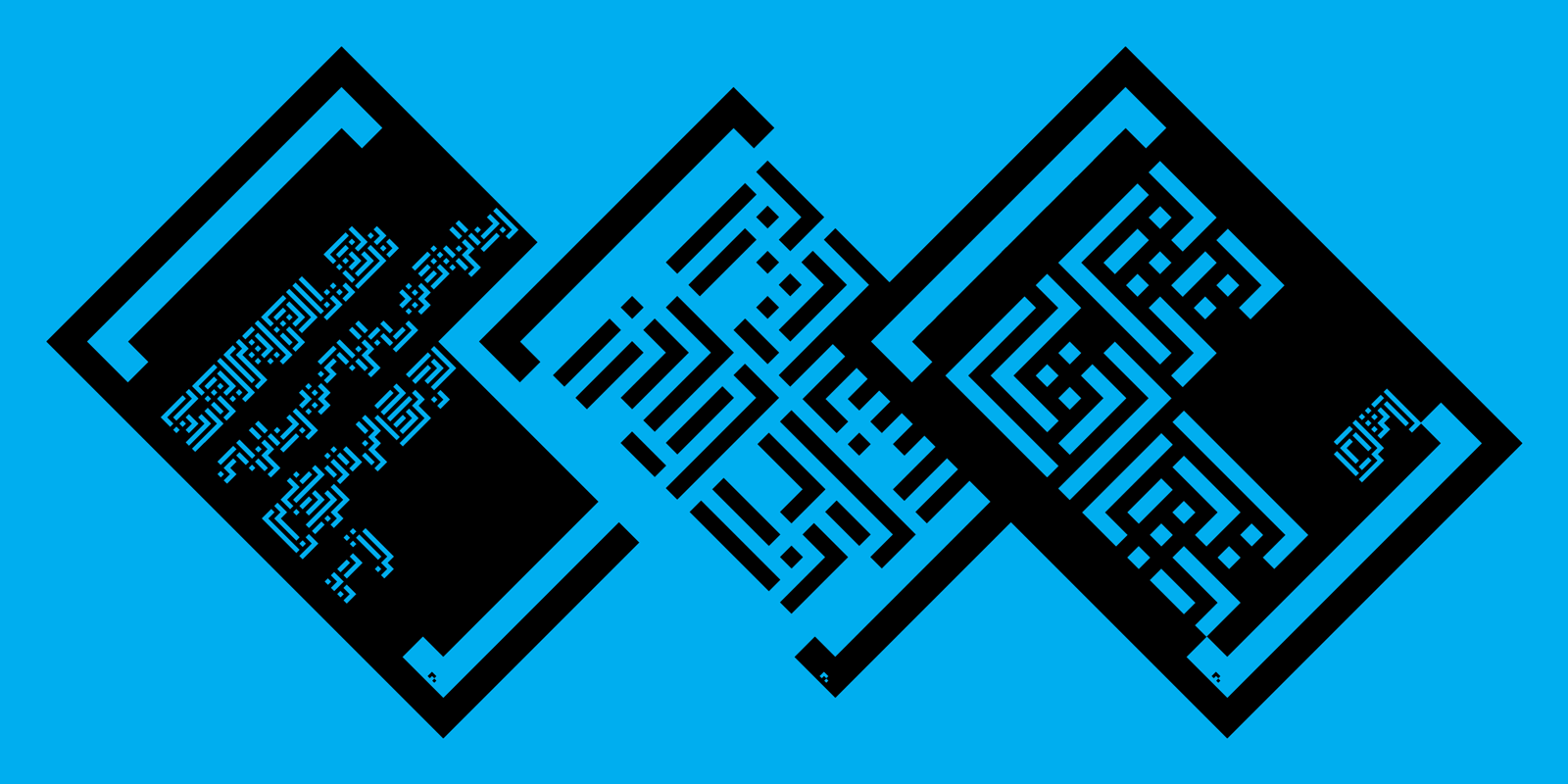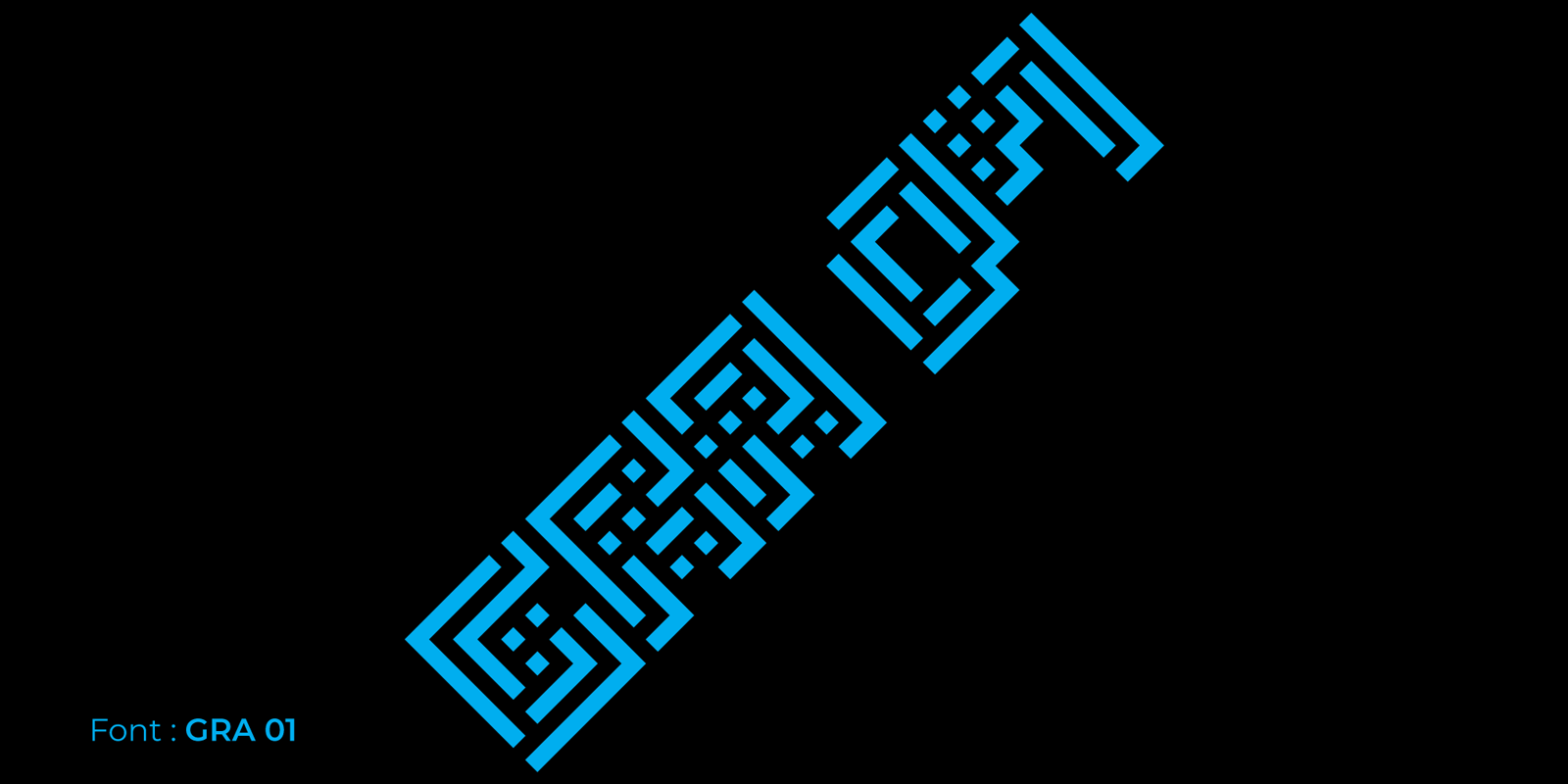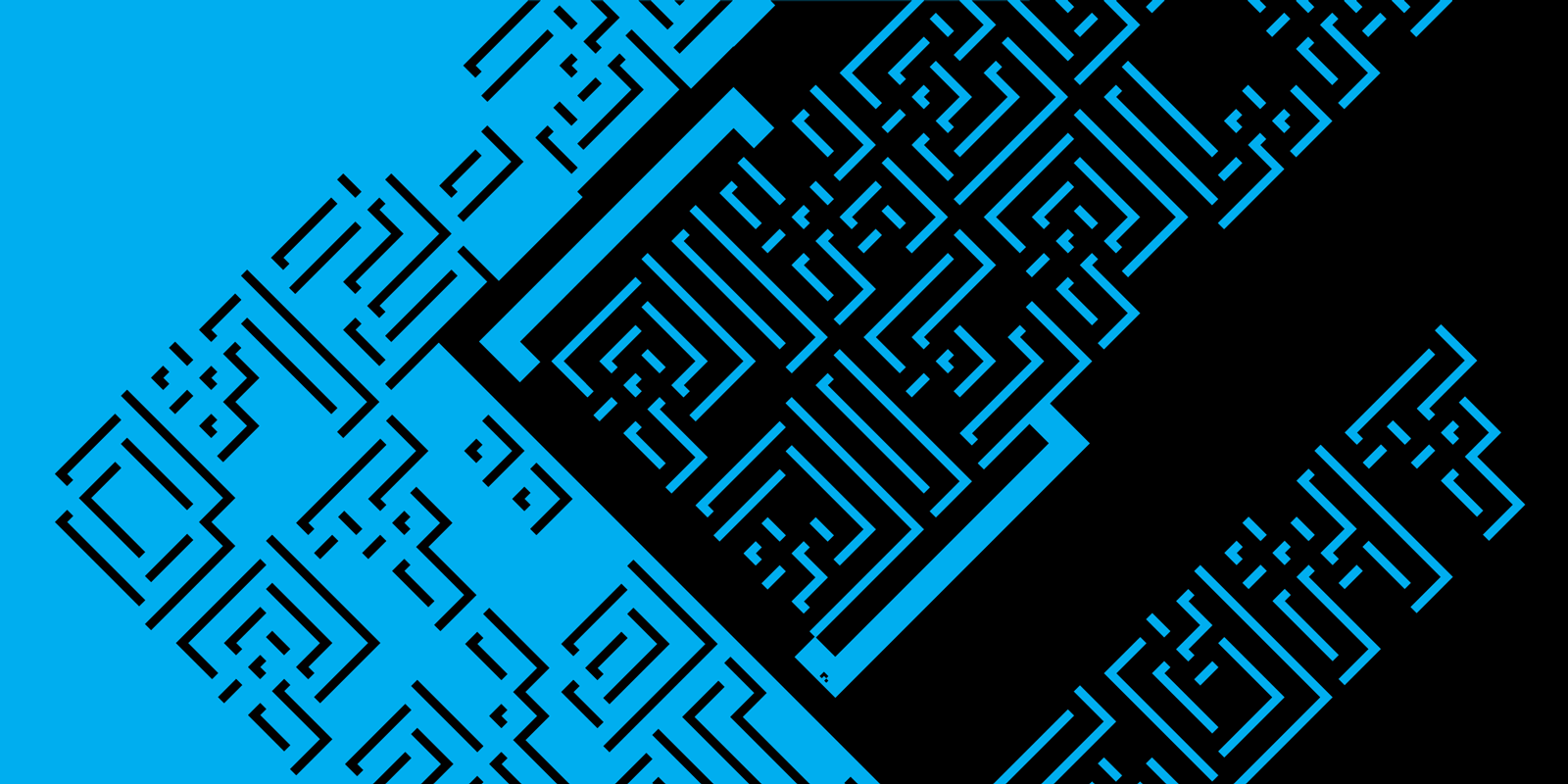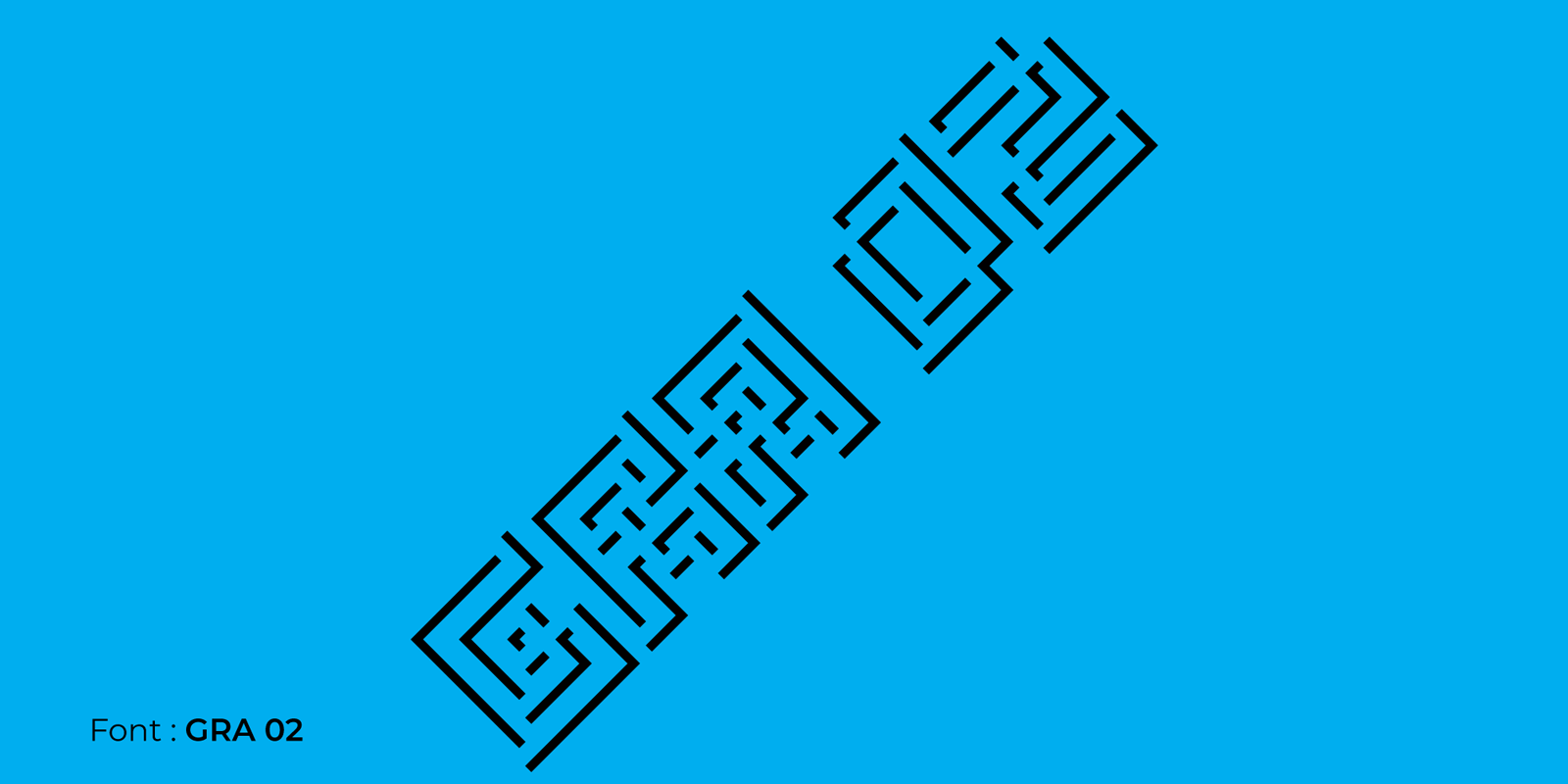
Futuristic display cover with bright blue text reading Gra 01 arranged diagonally on a solid black background.
High-density typography poster graphic with interconnected black geometric characters completely filling a bright blue layout.
Gra 01 and Gra 02 are bold, geometric pixel fonts that push the boundaries of typography. Related to the experimental nature of the Graj typeface, these fonts feature a distinctive construction of layered, overlapping squares, creating a strong sense of depth and dimension. Each letter is crafted like a complex puzzle of square shapes, giving the fonts a striking, futuristic aesthetic.
Gra 01 offers a more solid and defined appearance, while Gra 02 has a slightly more delicate feel, with thinner outlines that enhance the perception of depth and light. Both fonts are ideal for creating bold headlines, logos, and other graphic elements that demand attention.
This typeface is perfect for bold, futuristic designs. Its intricate and experimental nature makes it suitable for a wide range of applications!
Three diamond-shaped black frames on a blue banner background displaying complex modular character samples and text blocks.
Diagonal composition showcasing Gra 02 text with thin black outline characters on a vivid blue background.